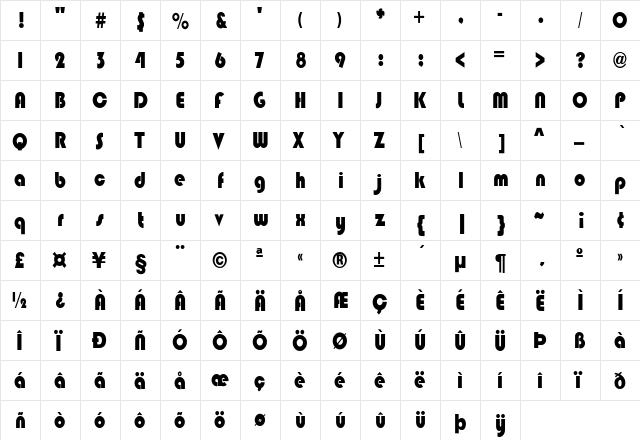
BlippoCnd-Heavy Regular
Design Context for BlippoCnd-Heavy Typeface
BlippoCnd-Heavy offers clean, dependable letterforms without strong stylistic allegiance, making it a practical choice for designers who need flexibility.